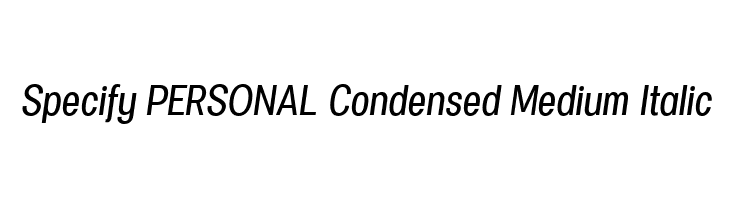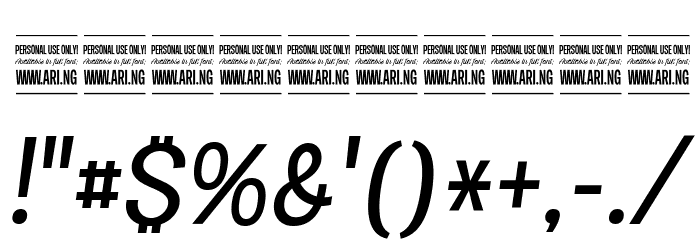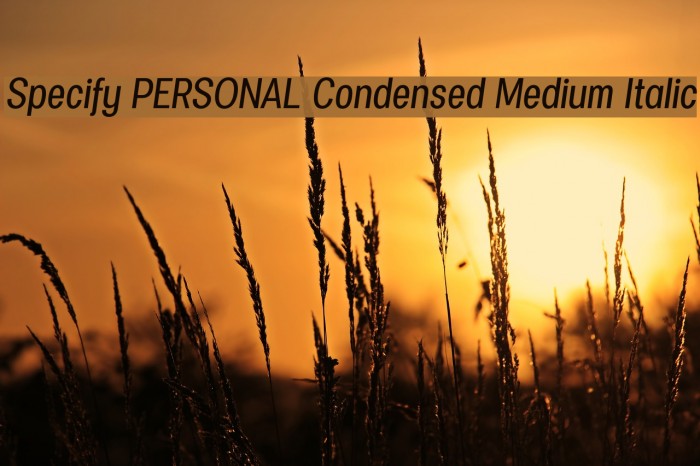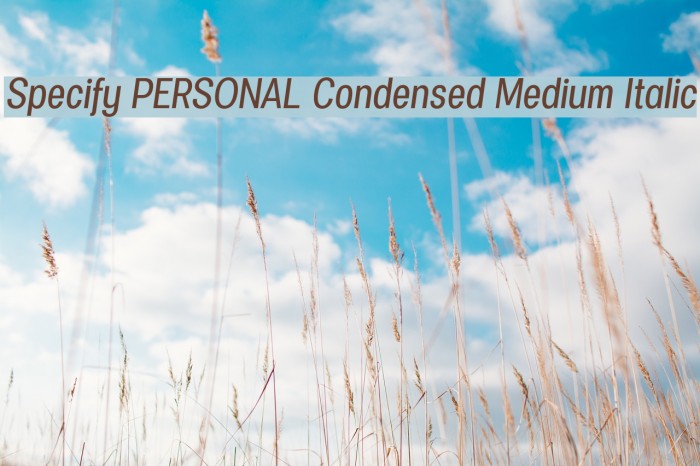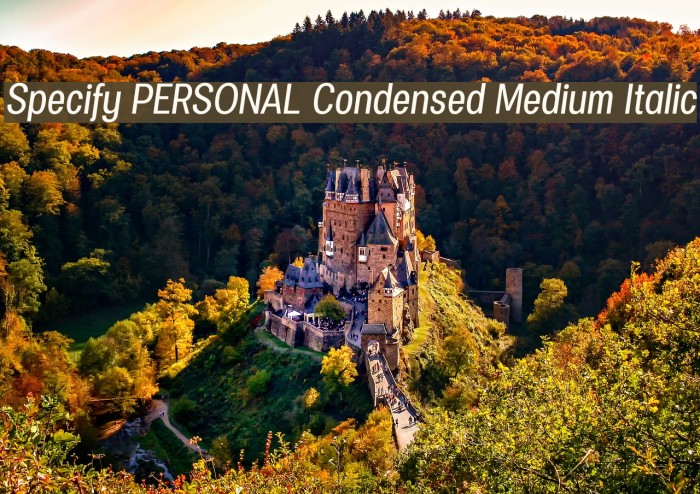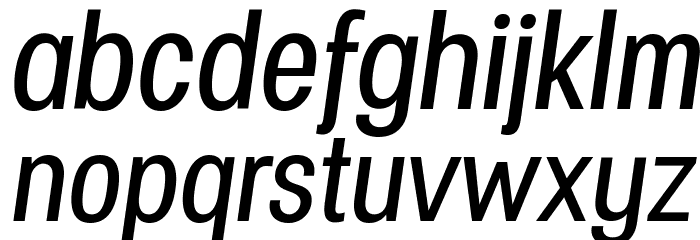
Specify PERSONAL Condensed Medium Italic Font
Specify PERSONAL Condensed Medium Italic Description
This font features a sleek, modern design with a condensed and italicized style. The characters are medium-weight, providing a balanced appearance that is both professional and stylish. The uppercase and lowercase letters maintain a consistent slant, enhancing the italic effect. The numerals and special characters are designed to complement the alphabet, ensuring a cohesive look across all text. The overall design is clean and minimalistic, making it suitable for a variety of applications.
A modern, condensed, medium-weight italic font with a sleek design from Uncategorized fonts.
- Proposed Projects: Ideal for branding, advertising, and editorial design where a modern and stylish look is desired.
- Use Case: Headlines, Logos, Advertising